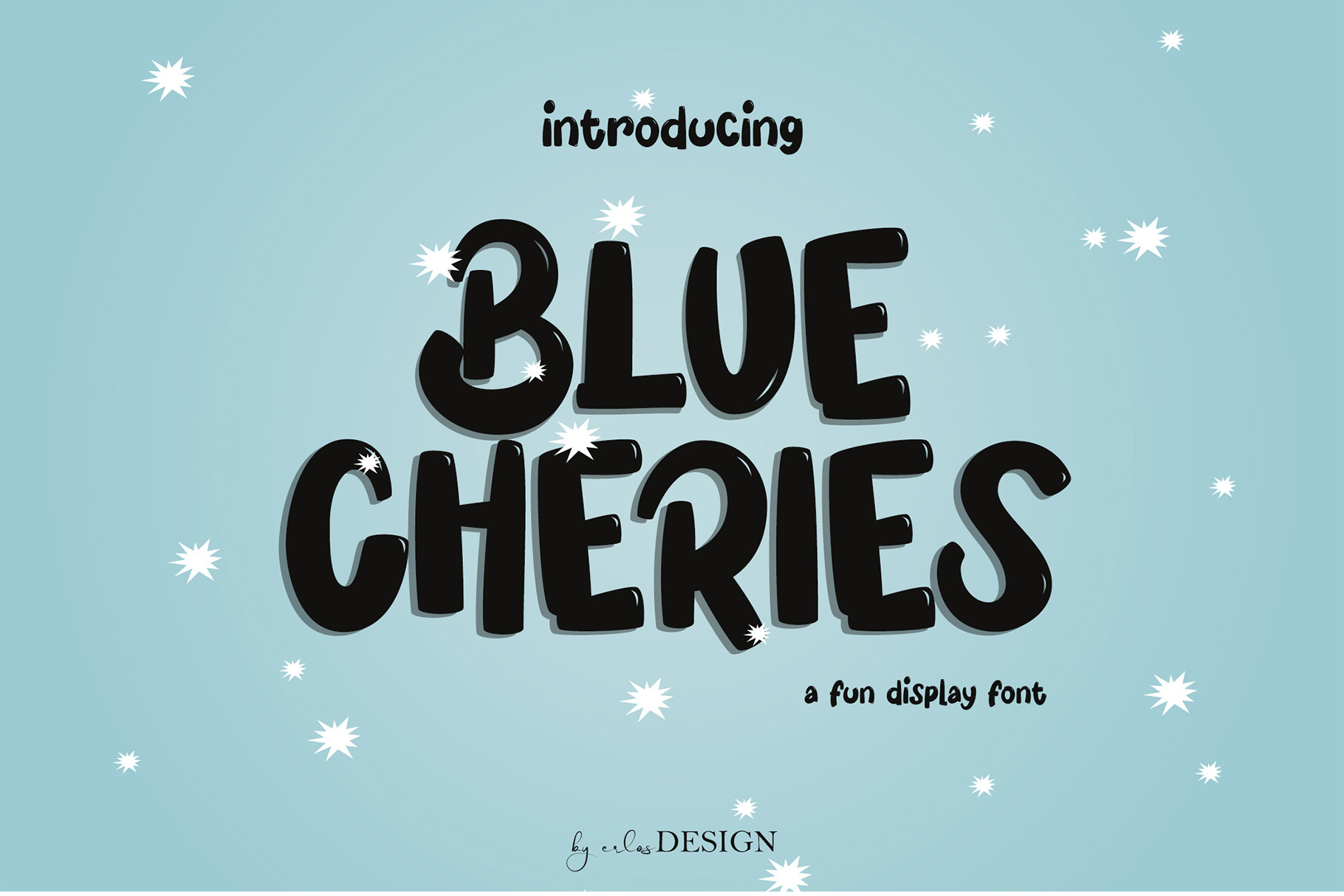
Blue Cheries - Fun Display Font
Blue Cheries - Display Font by erlos DESIGN
Blue Cheries is a fun and bubbly display font. Whether you are using it for cartoon-related designs, children’s games, quotes, titles, brand names, book covers, posters, or just any creation that requires a touch of beauty, this font is a great choice.